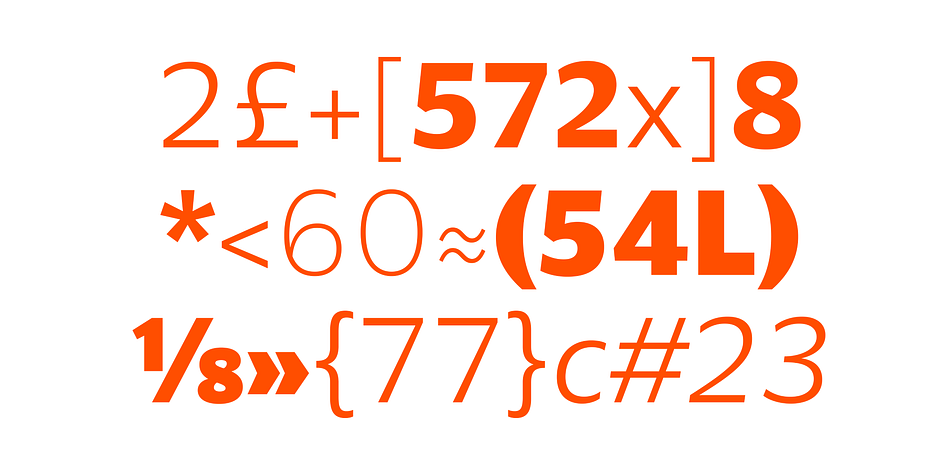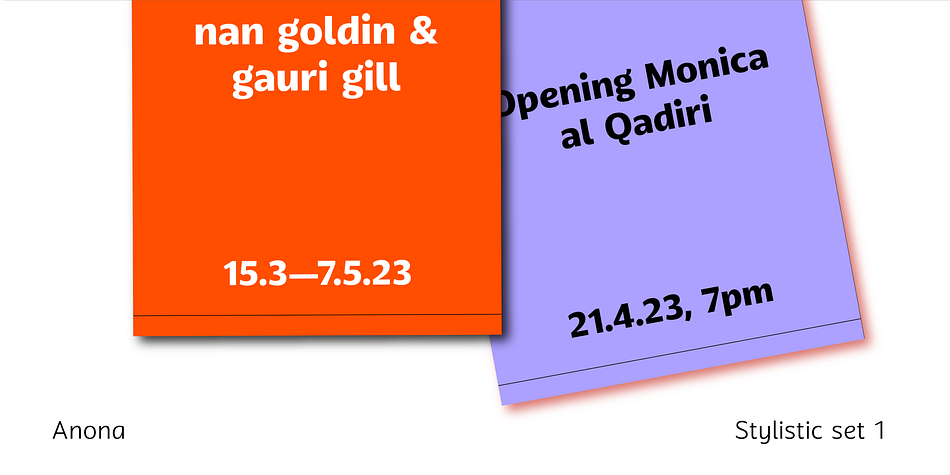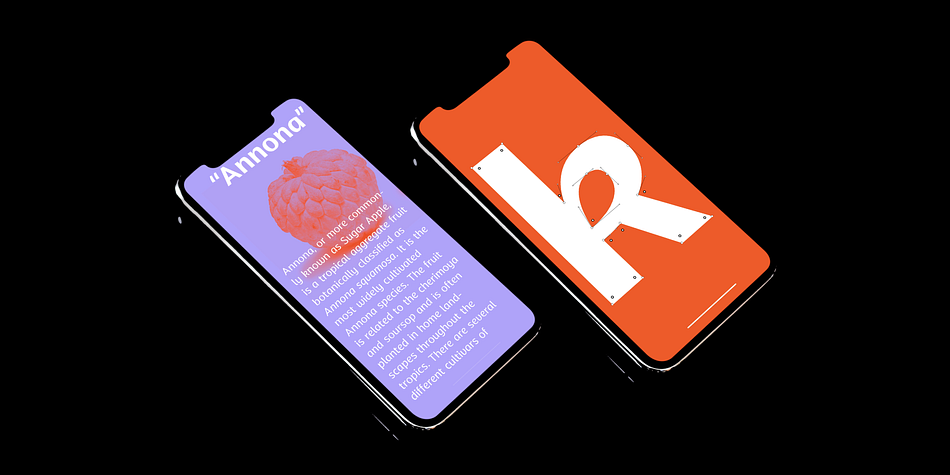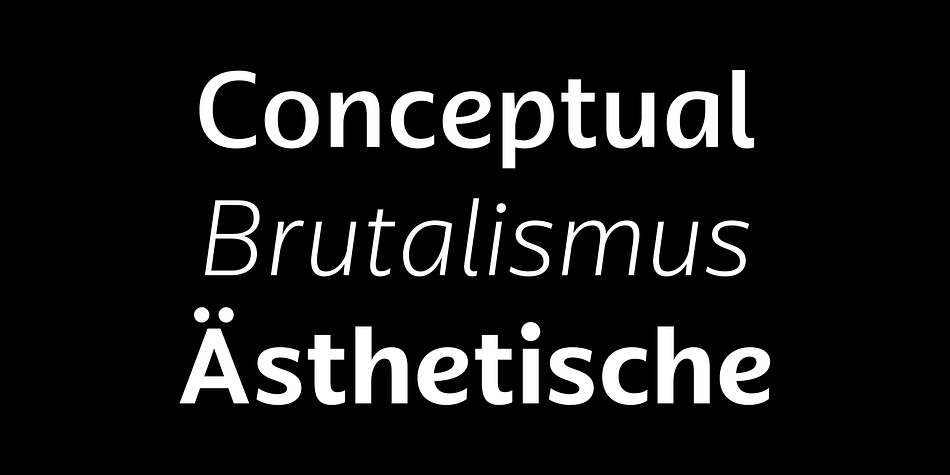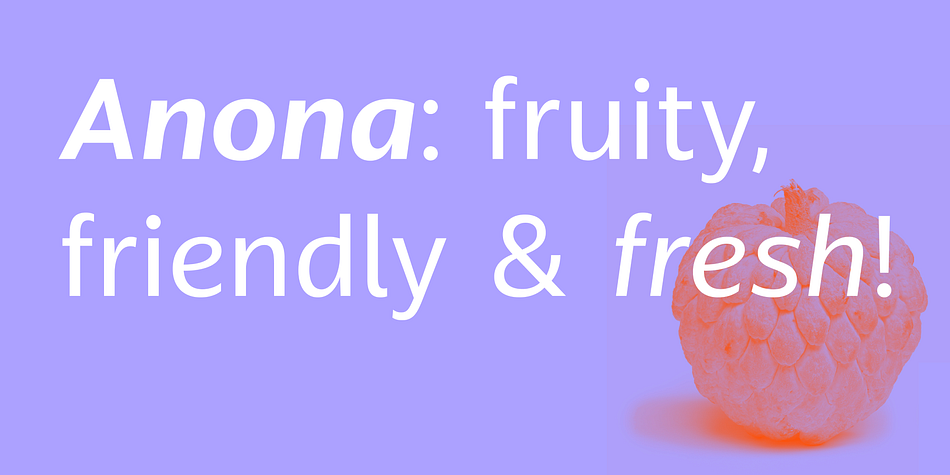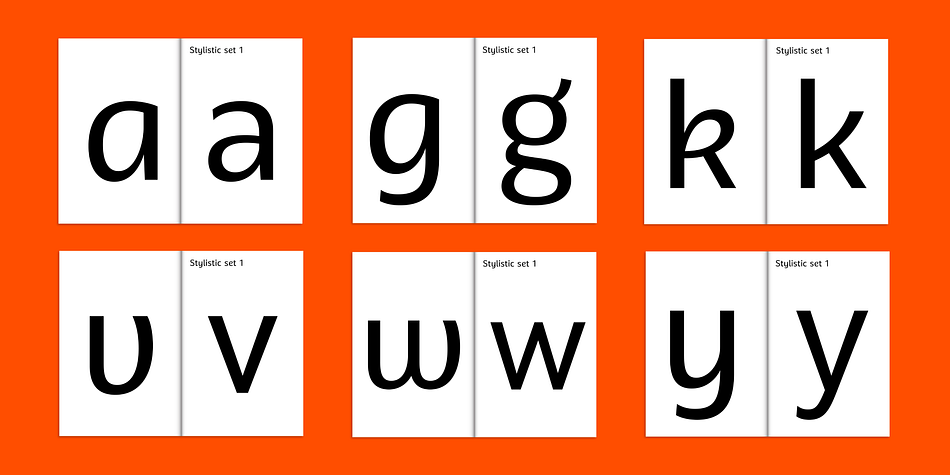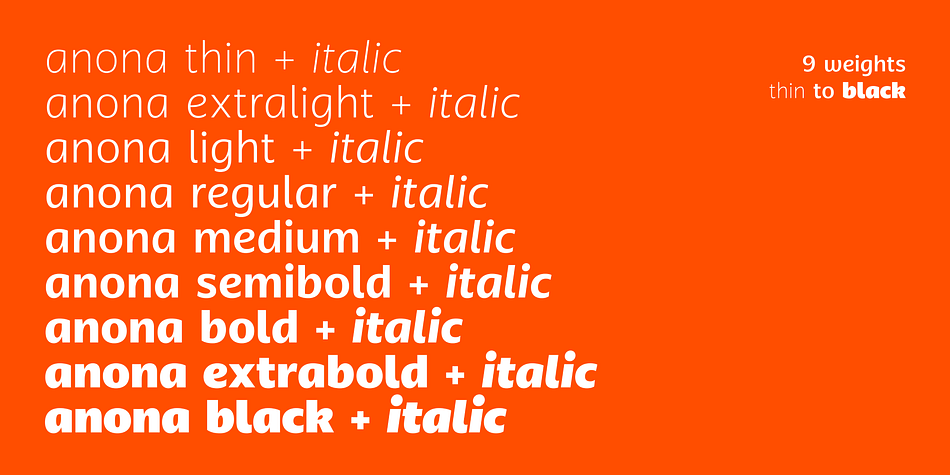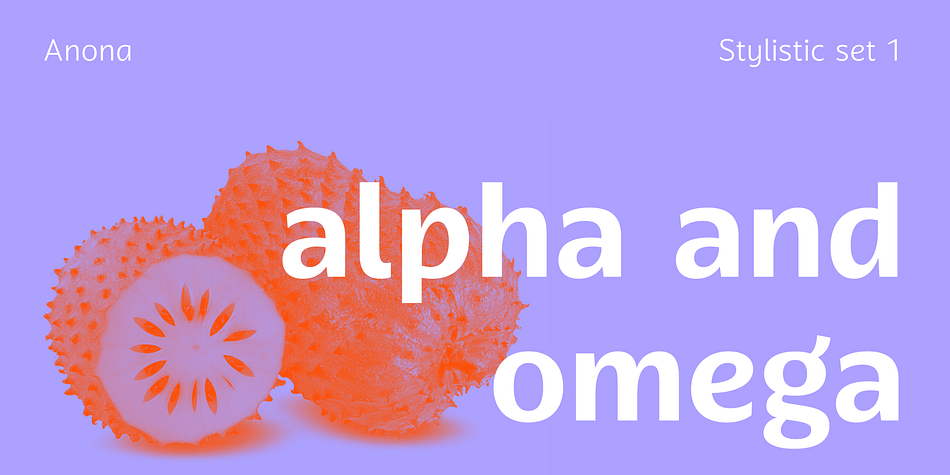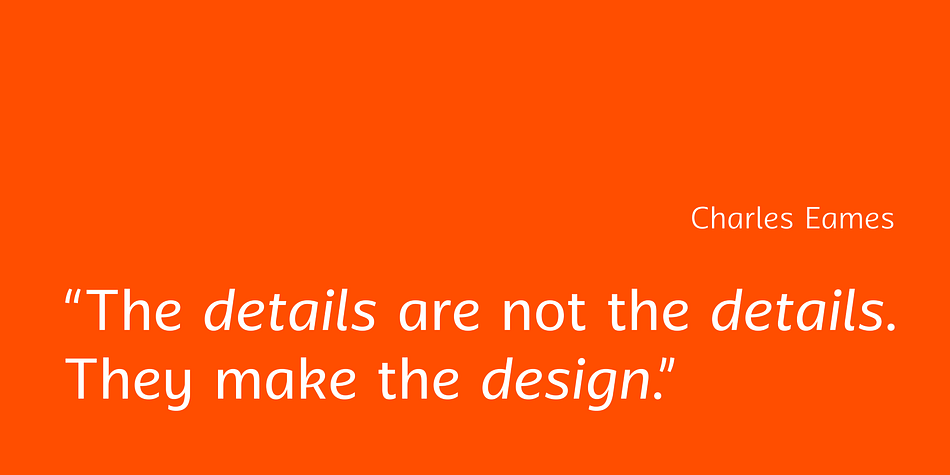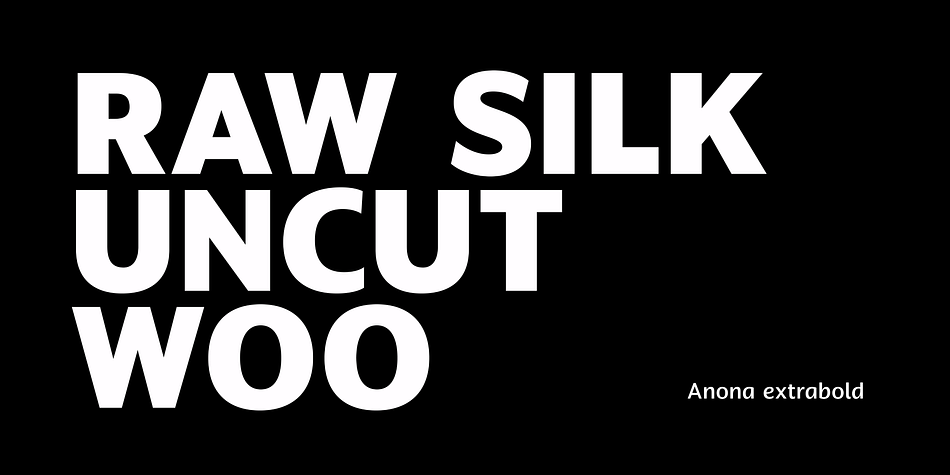
Anona
Designed by Joana Correia, Anona is a sans serif font family. This typeface has eighteen styles and was published by Nova Type Foundry.
Anona brings the upright italic to fruition and shows the handwriting shapes in a sans serif great to use in packaging and branding.
Anona brings the upright italic to fruition and shows the handwriting shapes in a sans serif great to use in packaging and branding. Anona is an upright italic sans serif typeface perfect for packaging and playful identities.
Explore the stylistic sets to see all the different shapes. Fruity and friendly upright italic sans serif come to brighten your projects. A warm and friendly sans serif will work for your identity. It has a complementary slanted version.
Anona comes to bring freshness to your day.